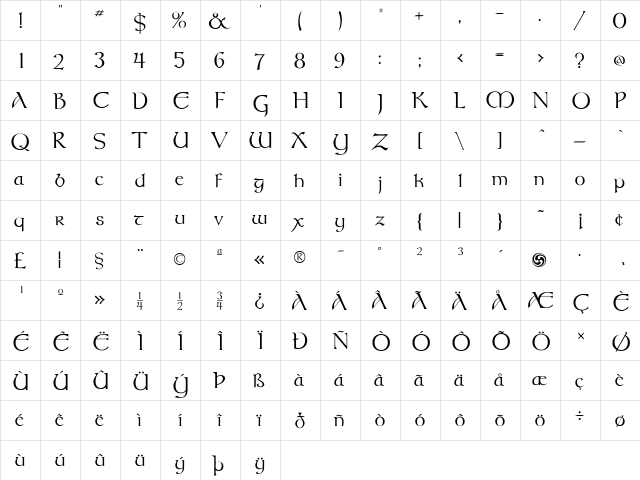
MeathFLF Regular
Design Context for MeathFLF Typeface
MeathFLF takes a measured approach to typography — its balanced proportions and neutral character make it a reliable workhorse for both digital and print work.